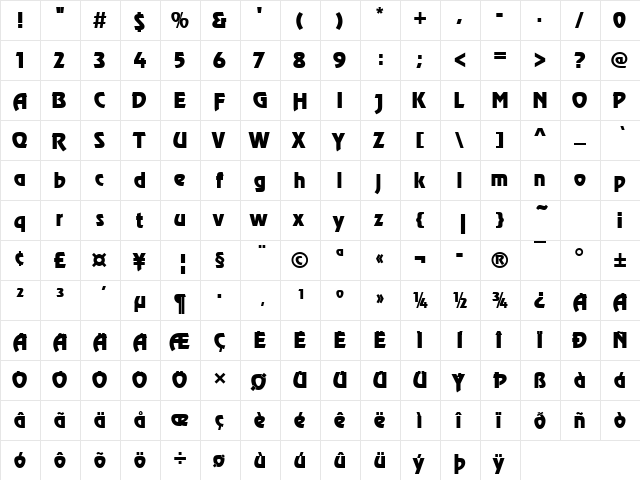
URWRectiP Regular
URWRectiP takes a measured approach to typography — its balanced proportions and neutral character make it a reliable workhorse for both digital and print work.